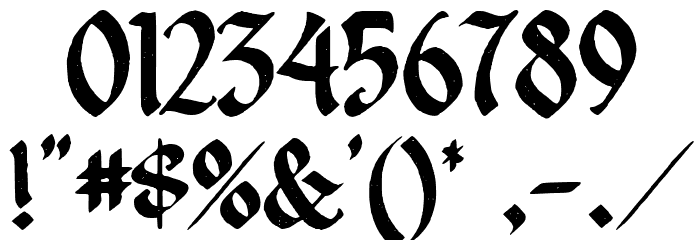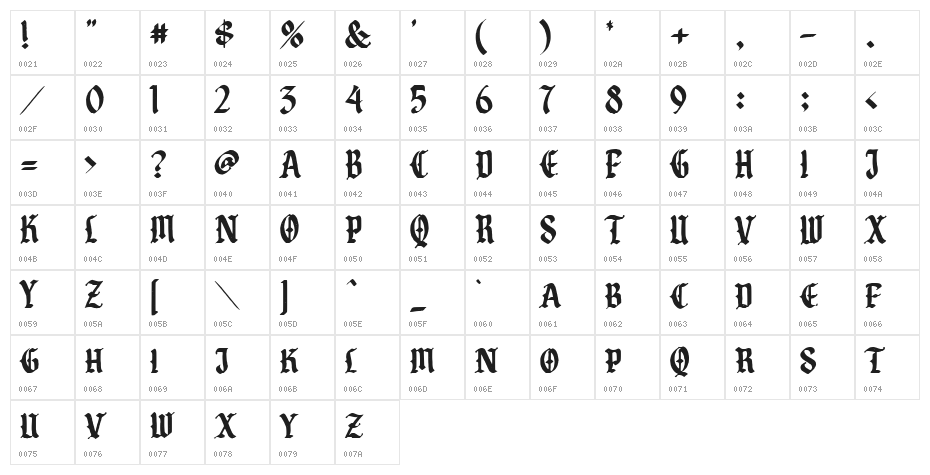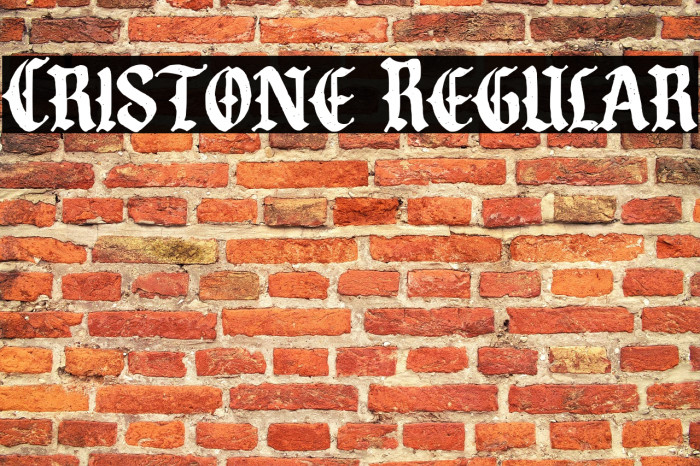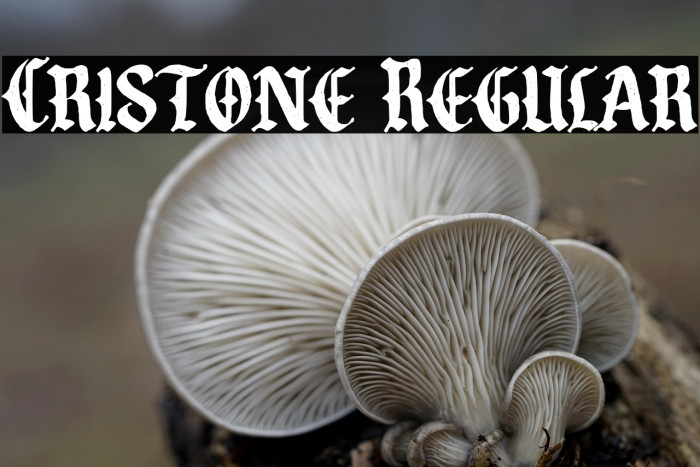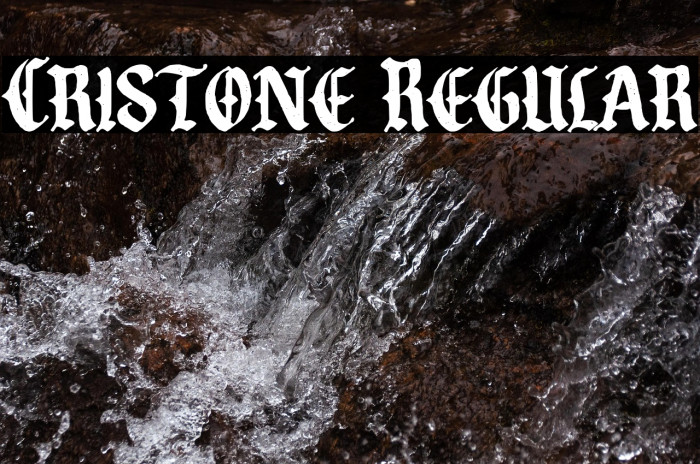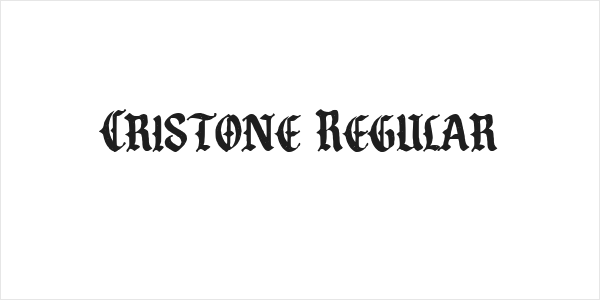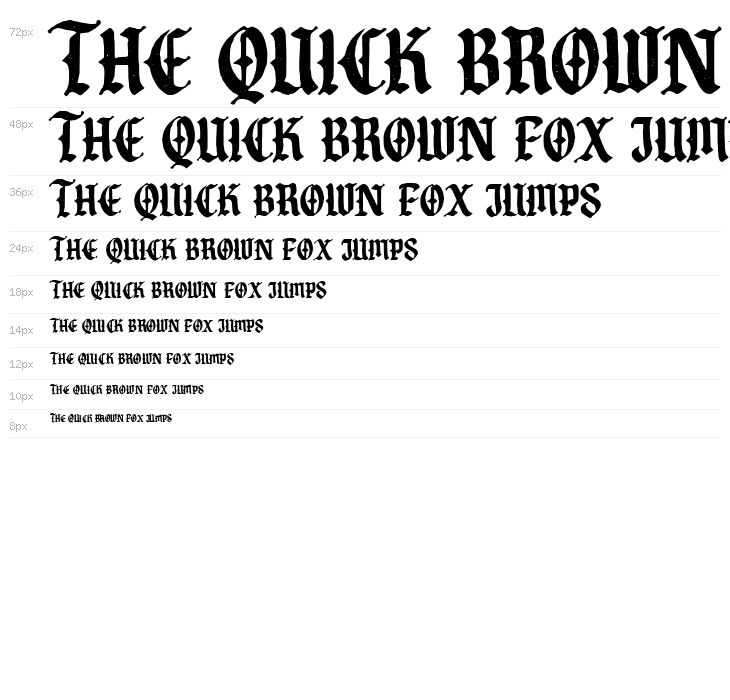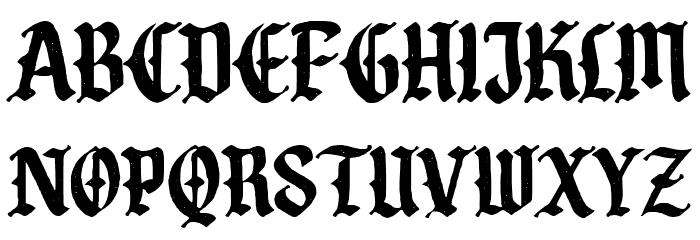
Cristone Regular Font
Cristone Regular Description
This font exhibits a bold and dramatic style, reminiscent of traditional blackletter typography. The characters are sharply defined with strong vertical strokes and intricate detailing, giving it a historic and authoritative appearance. The uppercase letters are particularly striking, with their elaborate serifs and angular forms. The lowercase letters maintain the same level of detail, ensuring consistency throughout the typeface. Numbers and special characters are equally ornate, making this font suitable for projects that require a touch of elegance and formality. The overall design is both decorative and functional, ideal for creating a strong visual impact.